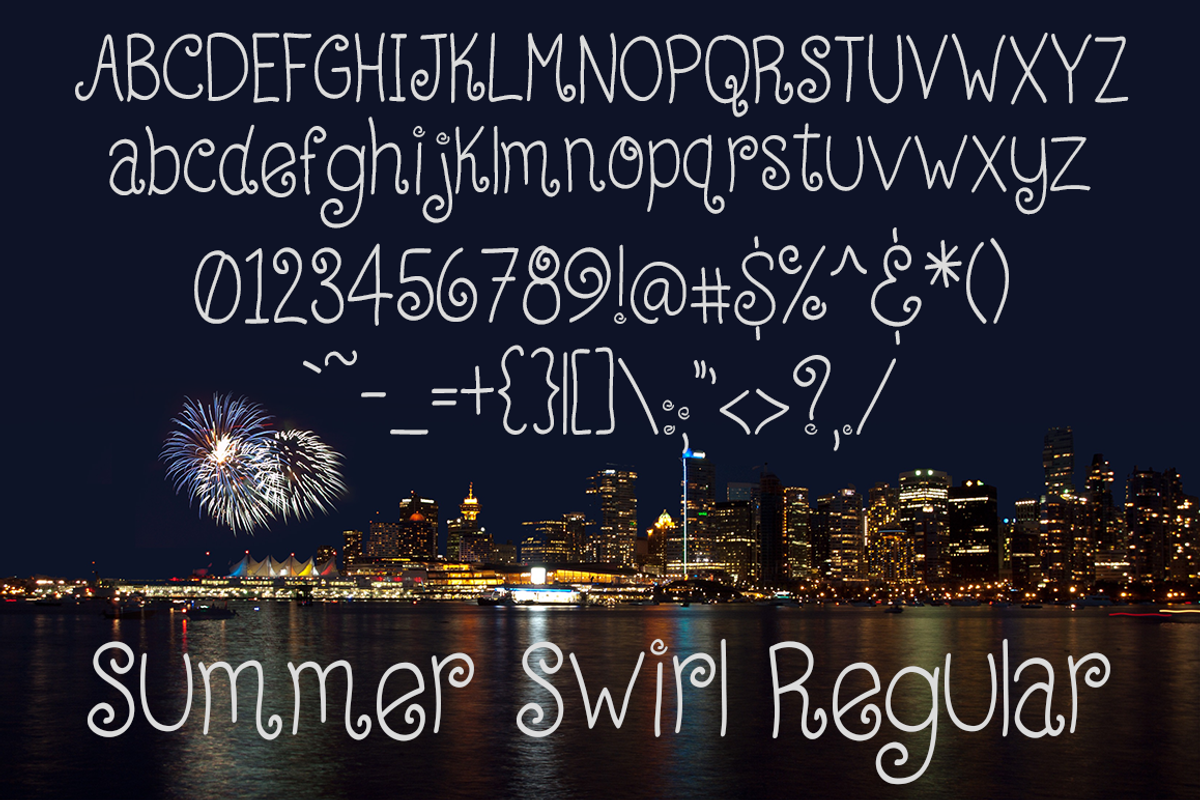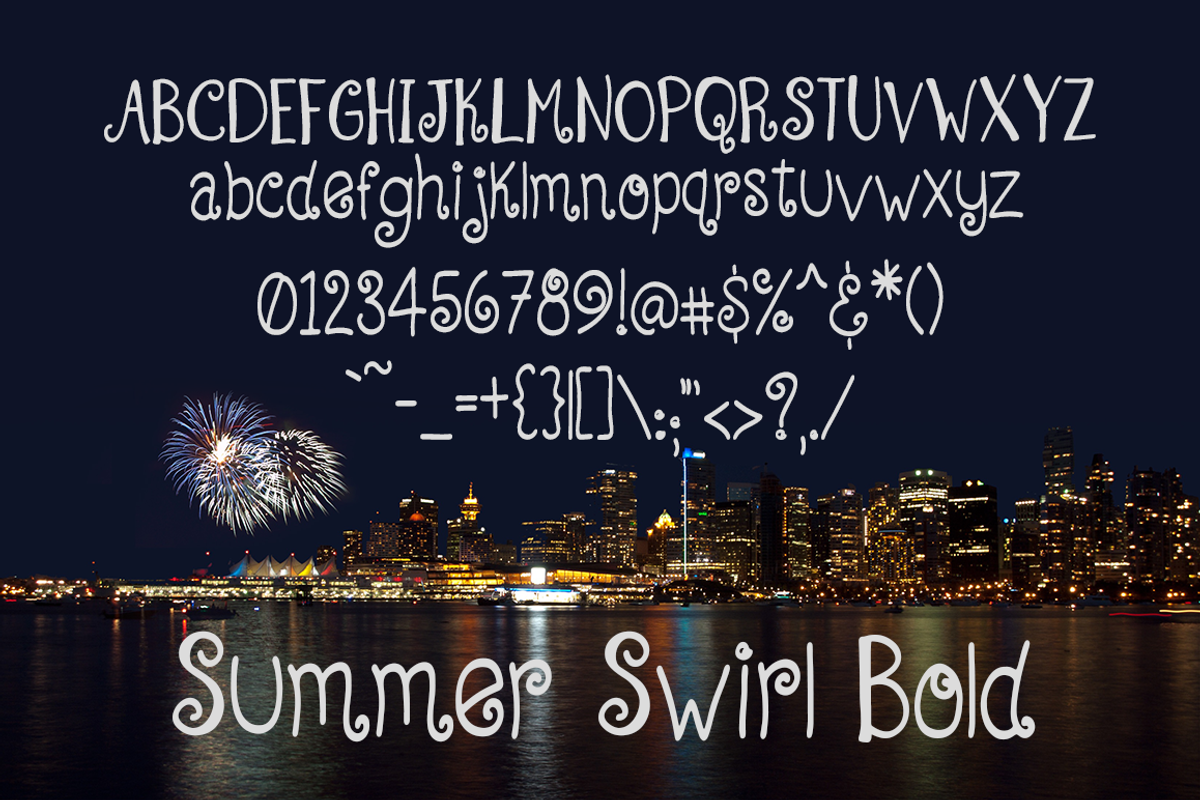
Summer Swirl, Curly Handwriten Font
Summer Swirl, Curly Handwriten Font by Phat Happy Life is a font selected for branding, posters, packaging, typography.
Why Summer Swirl, Curly Handwriten Font is worth a look
Summer Swirl, Curly Handwriten Font by Phat Happy Life fits naturally into Branding, posters, packaging, typography.